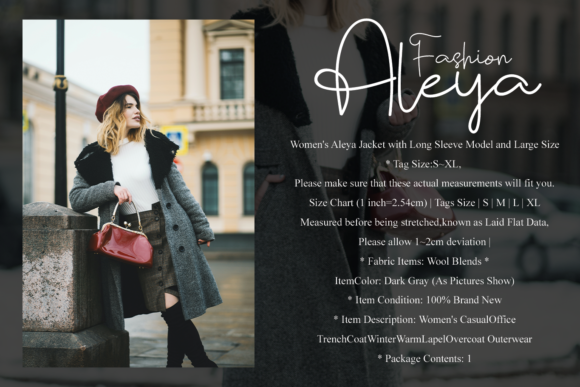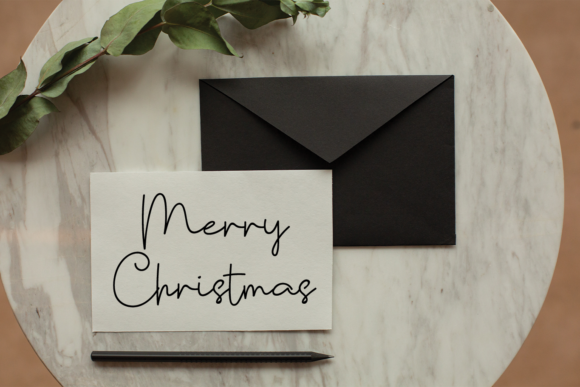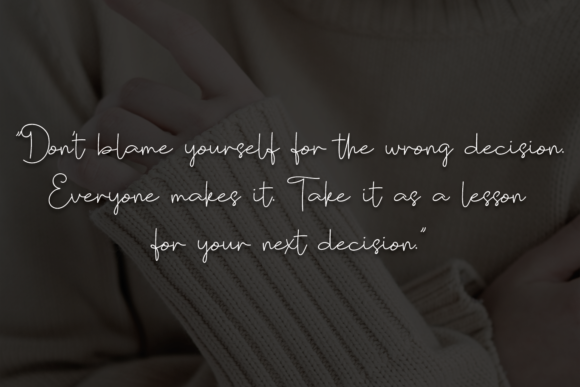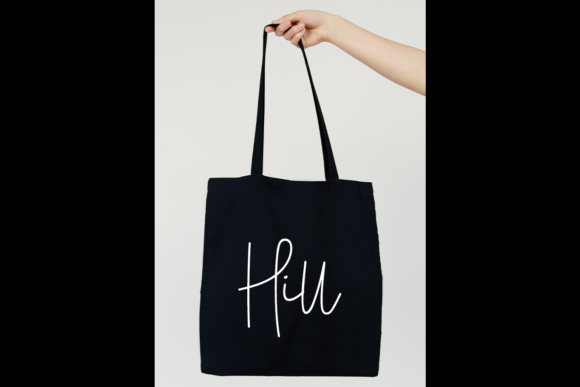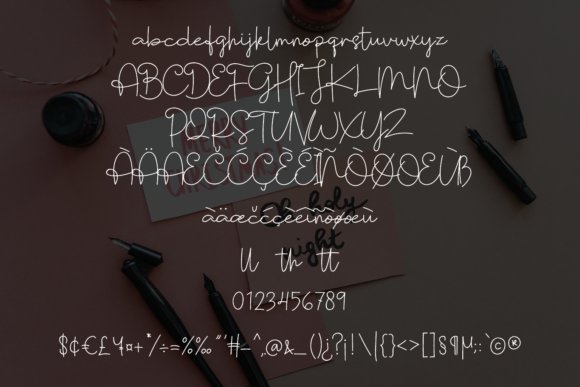
Introduction to Santa’s Letter Font
Santa’s Letter is an exquisite handwritten font, masterfully designed to become a true favorite.
It maintains its classy calligraphic influences while feeling contemporary and fresh .
Key Features of Santa’s Letter Font